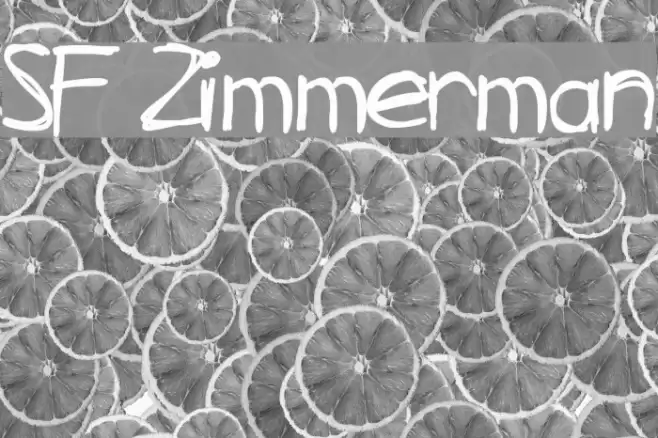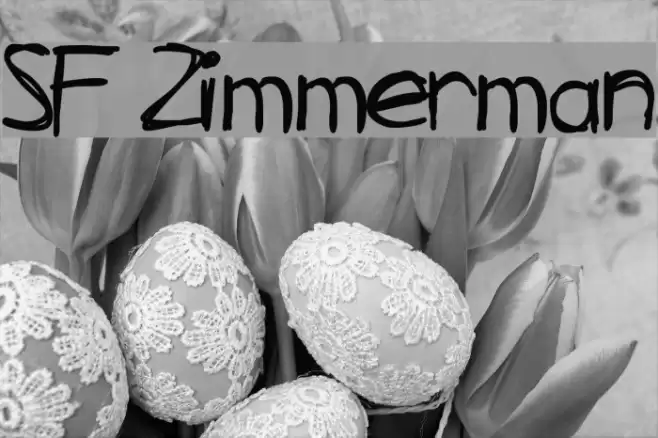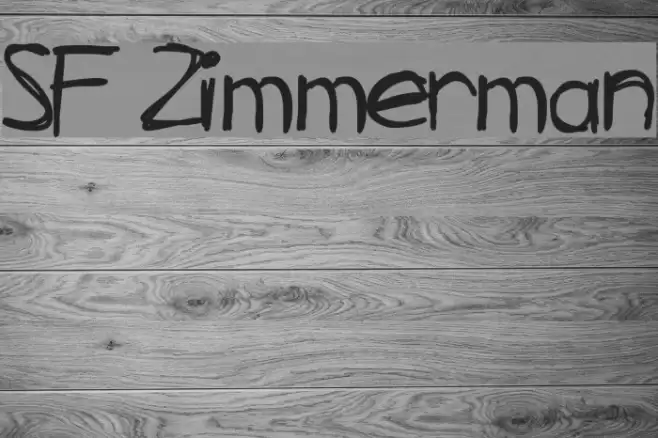
SF Zimmerman Font
SF Zimmerman Description
This font exhibits a casual, handwritten style with a playful and informal appearance. The characters are slightly irregular, mimicking the natural flow of handwriting. The strokes are bold and consistent, giving the font a strong presence. The uppercase and lowercase letters maintain a cohesive look, while the numbers and special characters integrate seamlessly with the overall design. The font's organic feel makes it suitable for projects that require a personal touch or a relaxed vibe.
A bold, handwritten font with a casual and playful style from Handwritten fonts.
- Proposed Projects: Ideal for greeting cards, personal blogs, children's books, and informal branding.
- Overall Style: Casual
- Use Case: Logos, Headlines, Informal Text